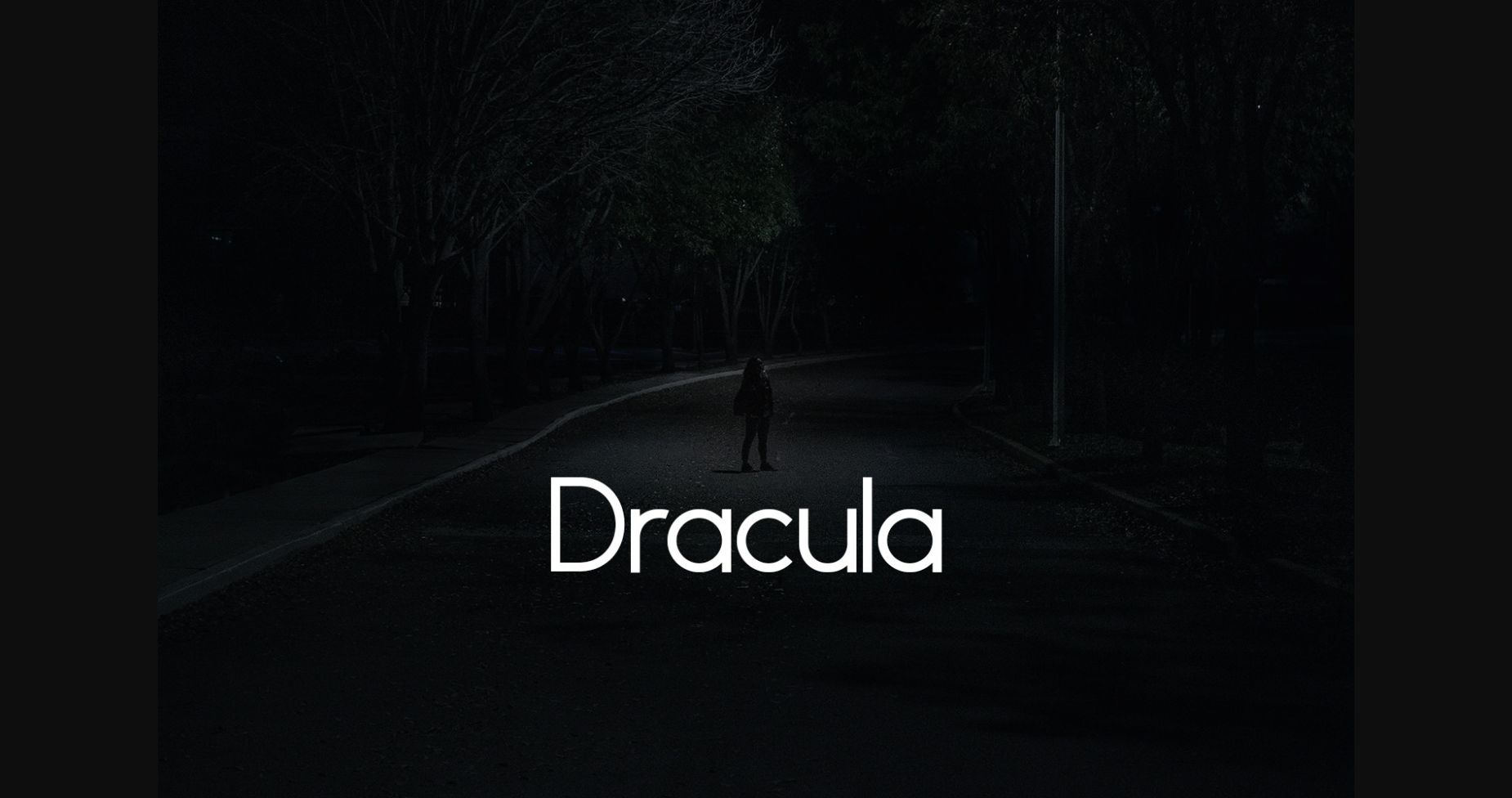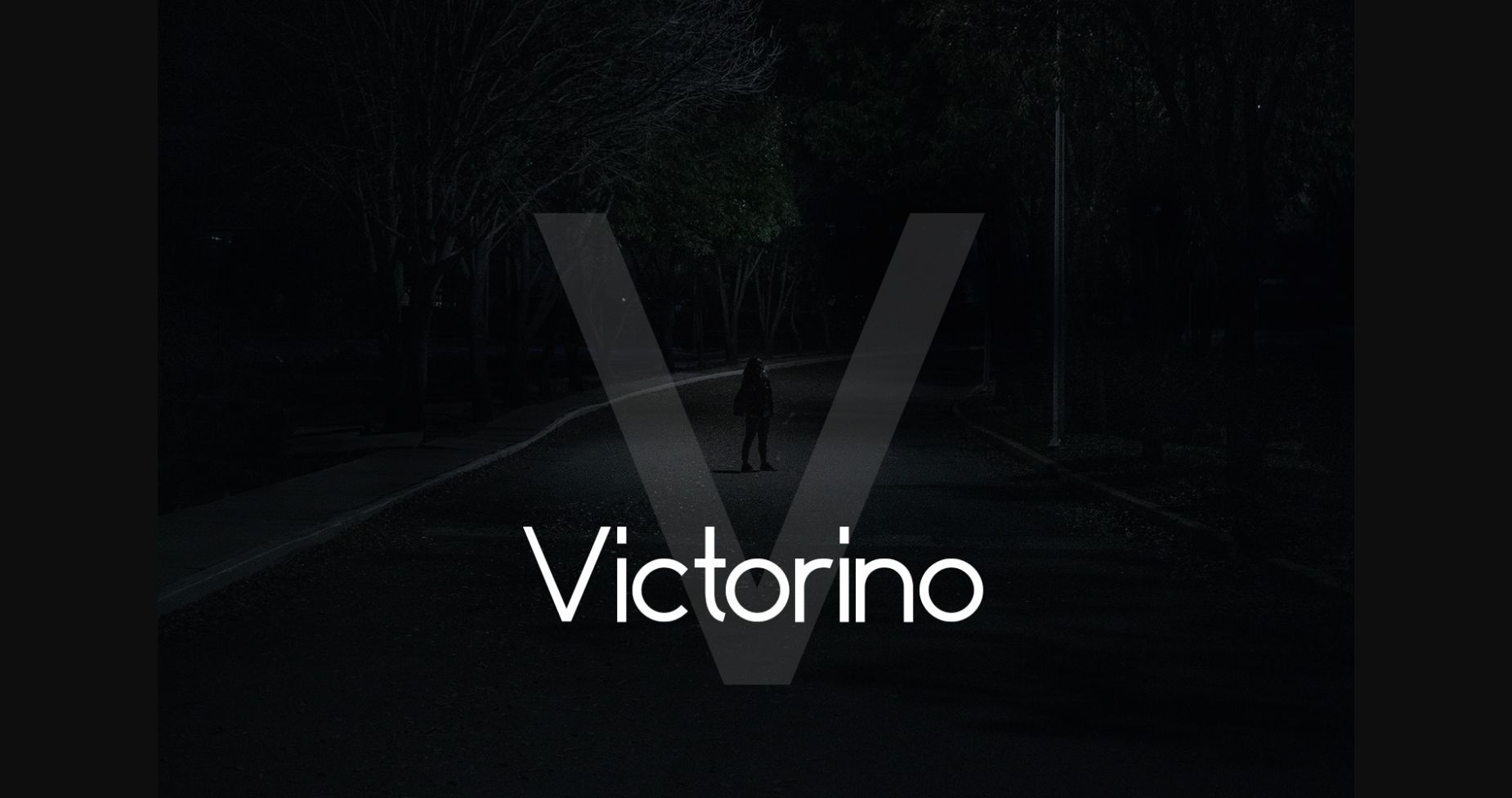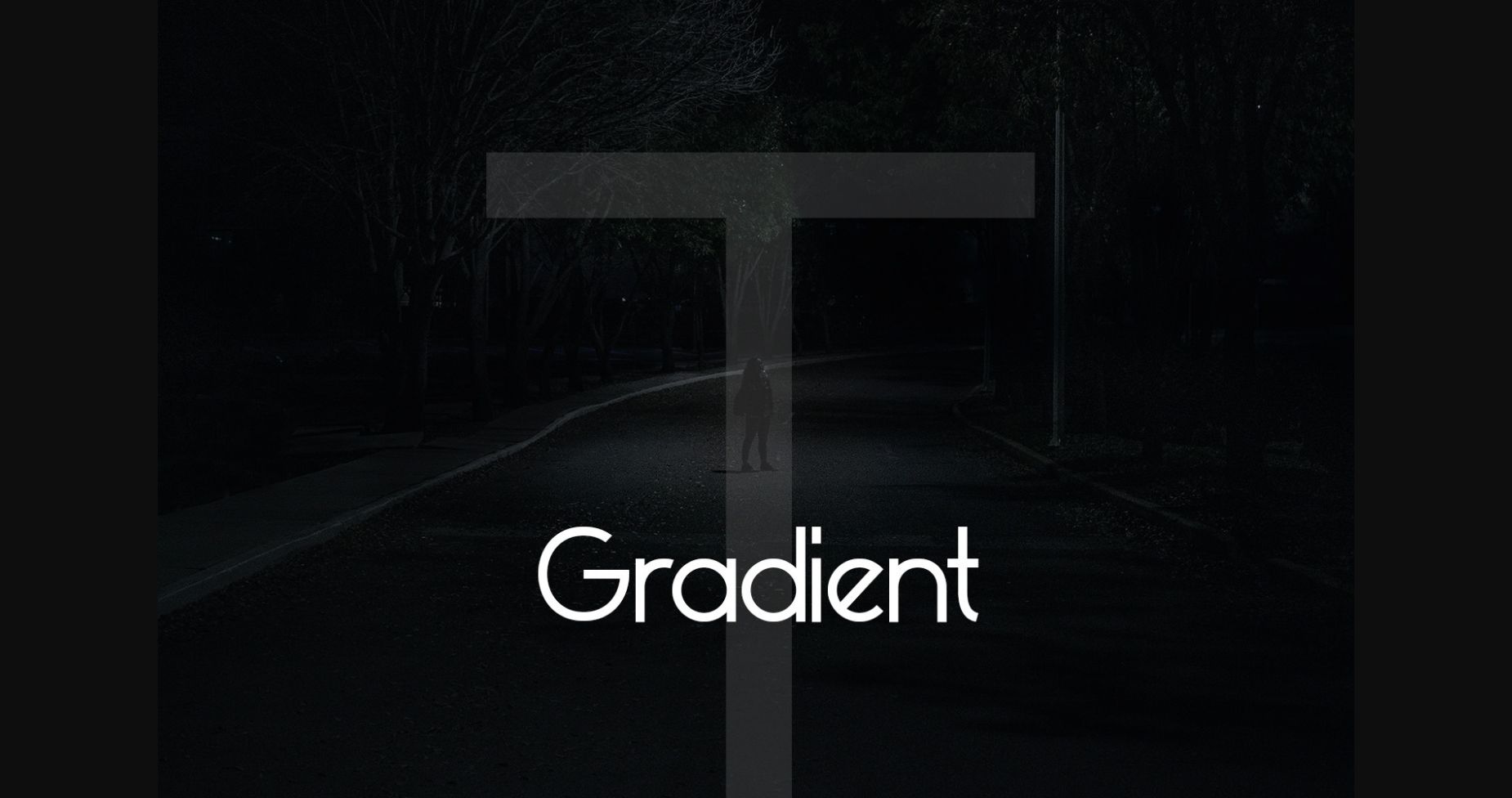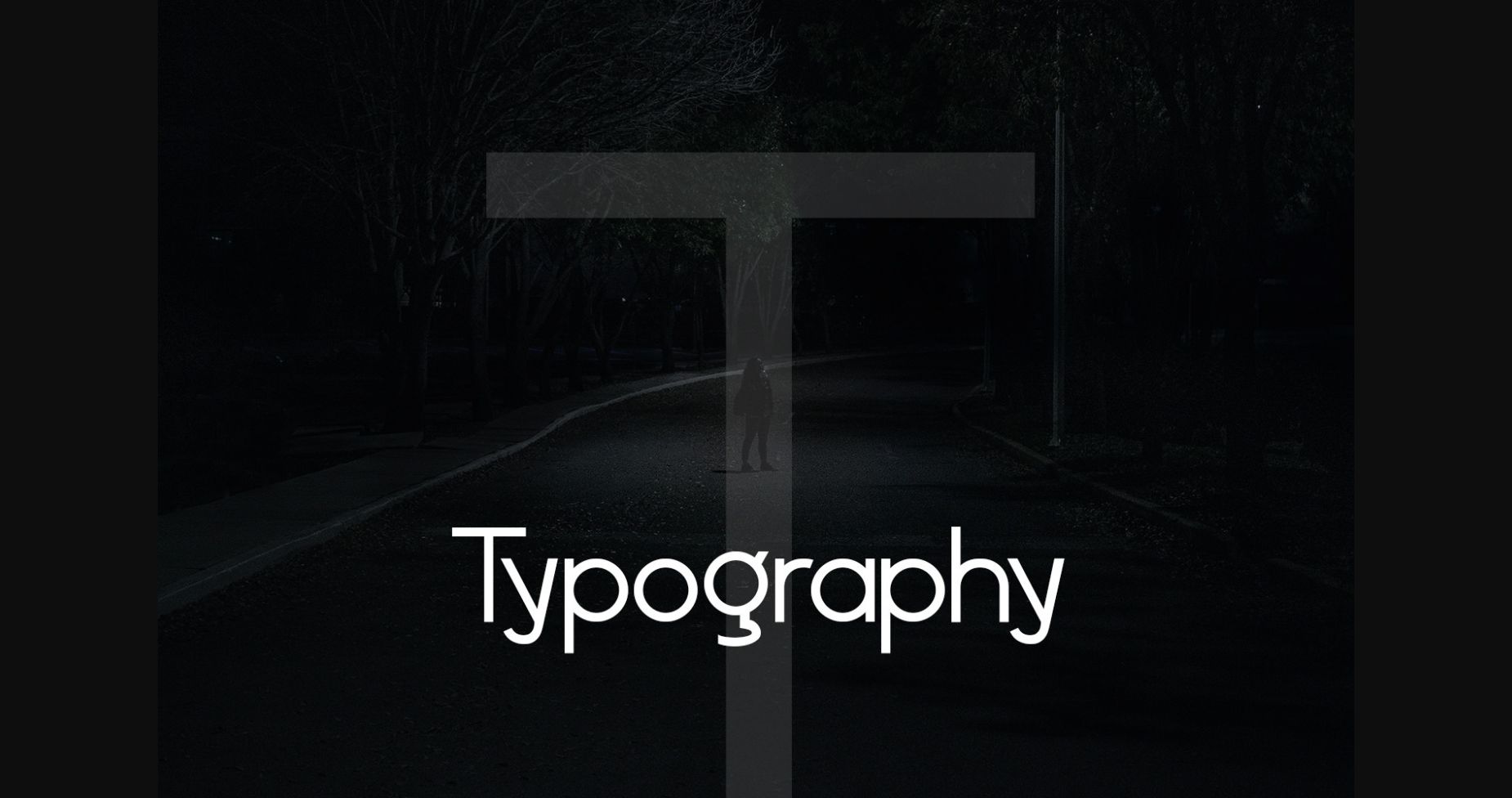
About Dracula Font
Dracula is a remarkably clear and tidy sans serif font. It will definitely add a graceful and minimalistic look to your next creative projects!